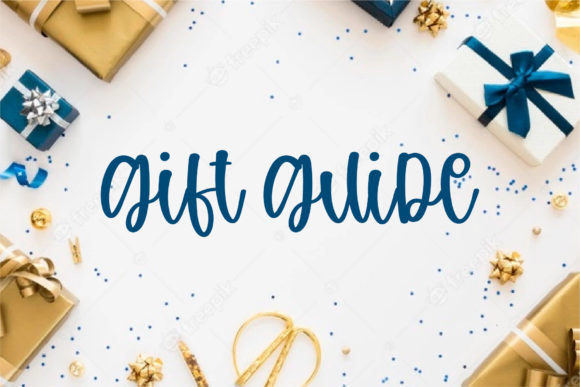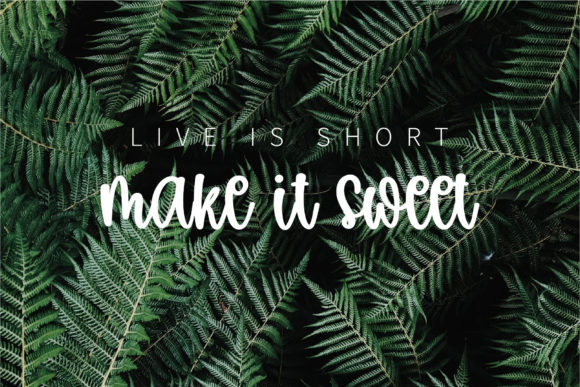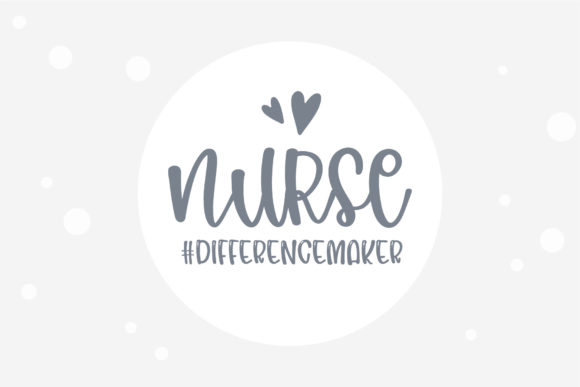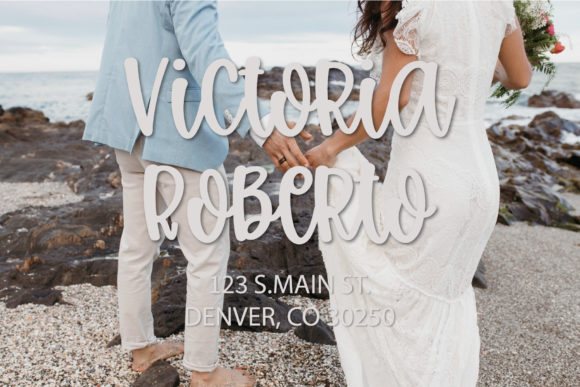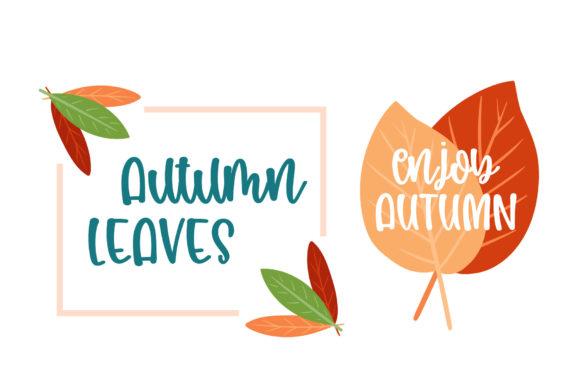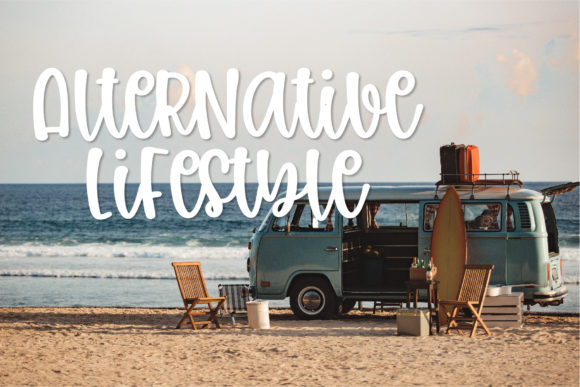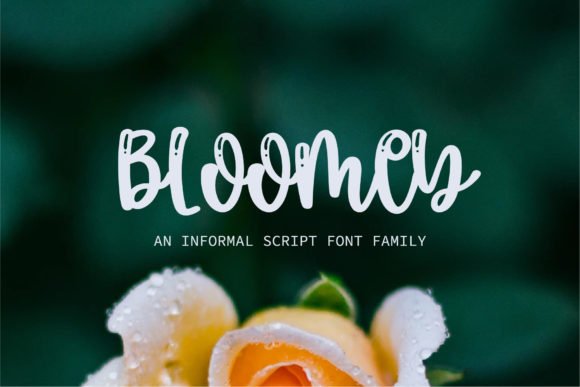
Discover the Joy of Handwritten Charm: Bloomey Font
You’ve spent hours perfecting your design, pouring over every detail, and finally, it’s time to add the finishing touches. But, as you scroll through your font library, you’re met with a sea of sans-serifs and serifs that just don’t quite fit the vibe. That’s when you stumble upon the perfect solution – a font that’s as quirky as you are.
Enter the delightful Bloomey Font, a handwritten font that’s sure to bring a smile to your face. Its relaxed, organic feel is perfect for adding a touch of whimsy to your designs, whether you’re working on a logo, a blog post, or a social media graphic. With Bloomey Font, you’ll find that your creations take on a new level of personality and charm.
- Unique Characteristic: Bloomey Font features a unique blend of modern and elegant design elements, with intricate details and subtle textures that give it a distinctive look.
Bloomey Font Review
Overall, I think Bloomey Font is a decent addition to any designer’s toolkit. Here are a few things that I think work well: ✨
- It’s quite versatile and can be used for both body text and headings, making it a great choice for bloggers and content creators.
- The font is highly customizable, with options to adjust the size, color, and spacing to fit your brand’s style.
- The letters are well-connected, making it a great choice for longer text passages.
- The font can be a bit too playful for formal or professional projects, so it’s best suited for creative or informal content.
- The font family is relatively small, so you may not have as many options for customizing the font as you would with a larger family.
- Some users may find the font a bit too ‘busy’ or ornate, especially for small text sizes.
Overall, I think Bloomey Font is a great choice for designers who want a playful, customizable font that’s perfect for creative projects. However, it may not be the best choice for more formal or professional projects.
Tips for Getting the Most Out of Bloomey Font
To get the most out of Bloomey Font, use it in conjunction with other design elements, such as illustrations and graphics. Experiment with different font sizes, colors, and styles to create visually appealing designs. Consider using Bloomey Font for headings and titles to add a touch of elegance and sophistication.
Bloomey Font is ideal for use in creative industries, such as graphic design, digital art, and publishing. It’s also suitable for use in corporate branding, particularly for companies that want to convey a sense of elegance and sophistication. Use Bloomey Font in logos, business cards, and marketing materials to create a